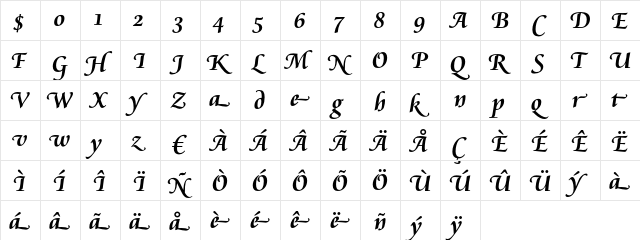
Cataneo Bold Swash
Design Context for Cataneo Typeface
Cataneo brings a calligraphic fluidity to the page — its connecting strokes and expressive curves give it an unmistakably human quality. Its bold stroke weight gives it real presence on the page.
Font Pairing: Combine Cataneo with a simple geometric sans for maximum contrast — the tension between flowing curves and clean structure is a classic typographic pairing.
Pro Tip: Pair Cataneo with a clean sans-serif for supporting text. The contrast between fluid script and geometric structure creates an elegant typographic hierarchy.